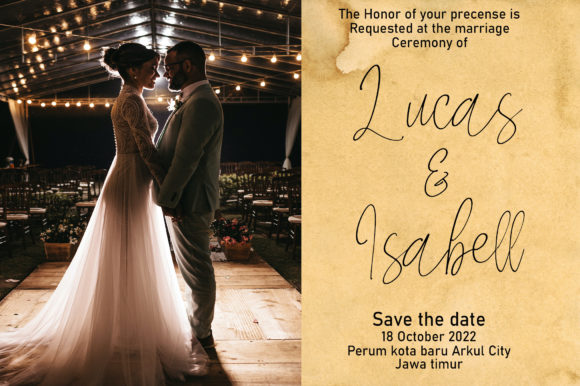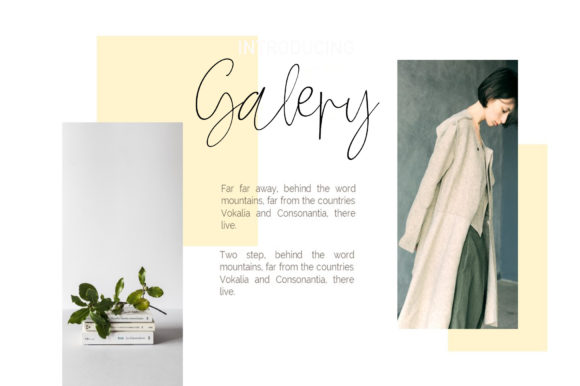
Jesica Roshi Font
About Jesica Roshi Font
Jesica Roshi is a delicate, elegant, and flowing handwritten font. It has beautiful and well-balanced characters and as a result, it matches a wide pool of designs. No matter the topic, this font will be an incredible asset to your fonts’ library, as it has the potential to elevate any creation.